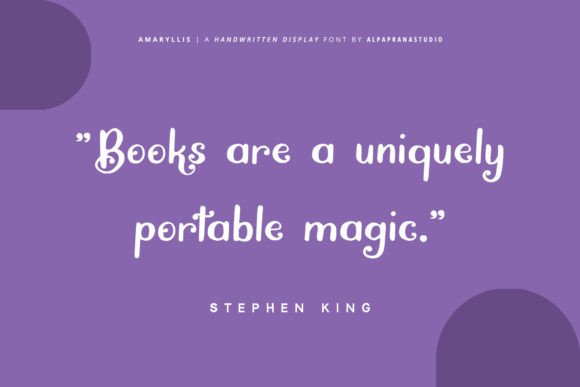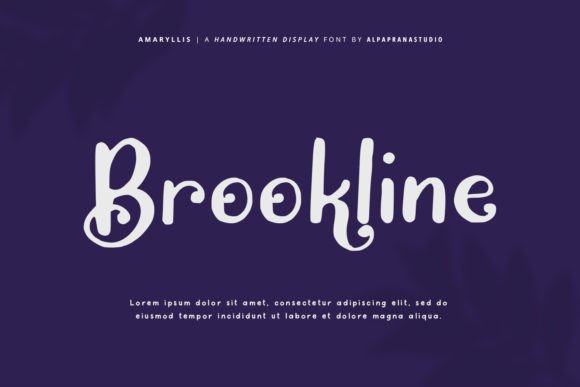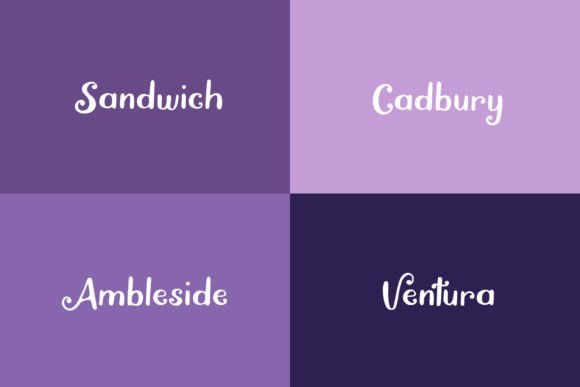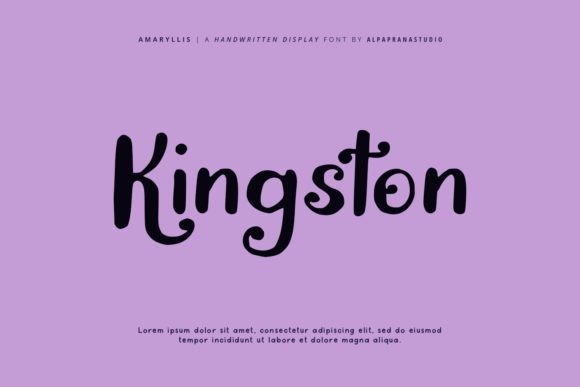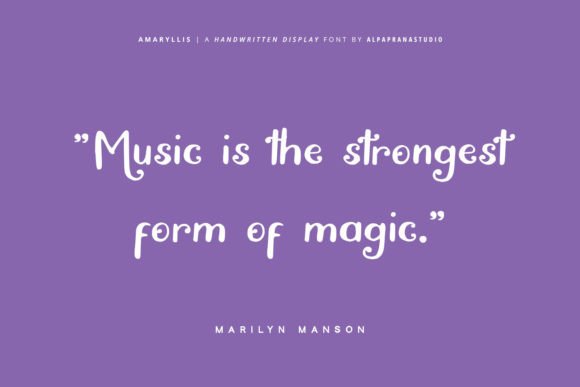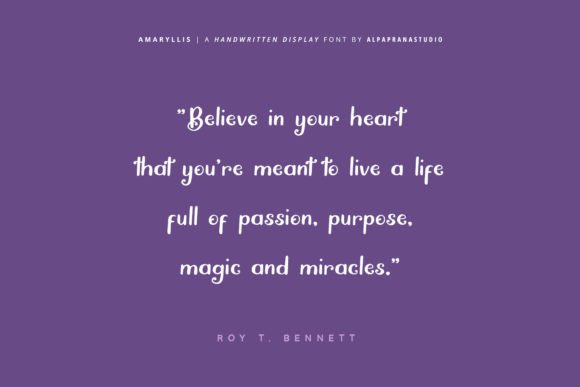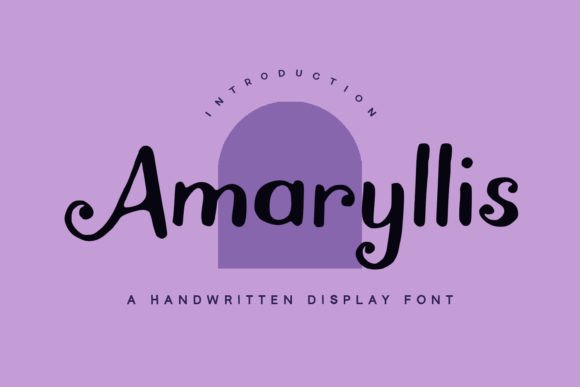
Introducing Amaryllis Font: The Quirky Handwritten Font with Modern Feels
Are you tired of using the same old fonts for your design projects? Look no further than Amaryllis Font, a quirky handwritten font with modern feels that’s perfect for adding a touch of personality to your branding, logo design, lettering, and more.
What is Amaryllis Font?
Amaryllis Font is a unique and versatile font that’s designed to add a touch of whimsy to your design projects. With its quirky handwritten style and modern feels, it’s perfect for designers and crafters who want to create something truly special.
What Can I Use Amaryllis Font For?
Amaryllis Font is incredibly versatile and can be used for a wide range of design projects, including:
- Branding: Create a unique and memorable brand identity with Amaryllis Font.
- Logo Design: Use Amaryllis Font to create a custom logo that’s both quirky and professional.
- Lettering: Add a touch of personality to your lettering projects with Amaryllis Font’s unique handwritten style.
- Logotype: Create a custom logotype that’s both stylish and effective.
- Clothing: Use Amaryllis Font to create custom designs for t-shirts, hoodies, and more.
- Posters: Add a touch of whimsy to your poster designs with Amaryllis Font.
- Magazines: Use Amaryllis Font to create eye-catching headlines and titles.
- Packaging: Add a touch of personality to your packaging designs with Amaryllis Font.
- Shopping Bags: Create custom designs for shopping bags that stand out from the crowd.
- T-Shirts: Use Amaryllis Font to create custom designs for t-shirts and other apparel.
- Book Covers: Add a touch of whimsy to your book cover designs with Amaryllis Font.
- Photography: Use Amaryllis Font to create custom titles and captions for your photography projects.
- Special Events: Create custom designs for special events, such as weddings, parties, and more.
Why Choose Amaryllis Font?
So why choose Amaryllis Font for your design projects? Here are just a few reasons:
- Unique Style: Amaryllis Font has a unique and quirky style that’s sure to stand out from the crowd.
- Versatility: Amaryllis Font can be used for a wide range of design projects, from branding and logo design to lettering and packaging.
- Modern Feels: Amaryllis Font has a modern feel that’s perfect for designers and crafters who want to create something fresh and contemporary.
Tips for Using Amaryllis Font
Here are a few tips for using Amaryllis Font in your design projects:
- Experiment with Different Sizes: Amaryllis Font looks great in a variety of sizes, from large headlines to smaller body text.
- Pair with Other Fonts: Amaryllis Font pairs well with a variety of other fonts, so don’t be afraid to experiment with different combinations.
- Use for Headlines and Titles: Amaryllis Font is perfect for headlines and titles, where its unique style can really shine.
- Add a Personal Touch: Use Amaryllis Font to add a personal touch to your design projects, such as custom illustrations or hand-drawn elements.